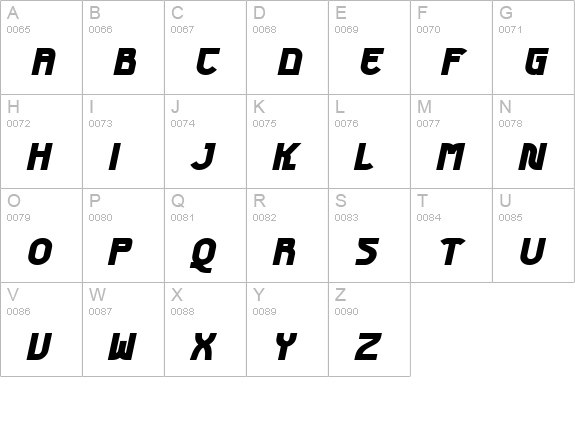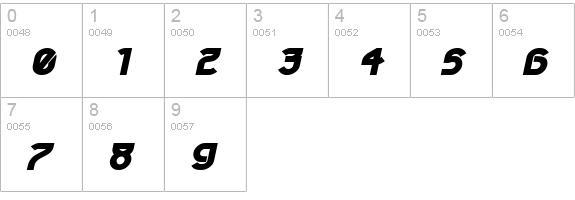
Futurex Phat Italic is a distinctive, italic variant in the Futurex typeface family \xE2\x80\x94 well suited to design and typography projects.
Futurex Phat Italic is a bold and dynamic font that exudes confidence and modernity. Its thick strokes and slanted design create a sense of energy and movement, making it perfect for attention-grabbing headlines and eye-catching designs. The italicized style adds a touch of elegance and sophistication to any project, while still maintaining a strong visual impact. This versatile font is ideal for a wide range of design applications, from posters and banners to logos and branding materials. Whether you're looking to make a bold statement or add a stylish flair to your designs, Futurex Phat Italic is sure to impress. Best of all, this font is available for free download at FontsMarket.com, making it easily accessible for designers and creatives looking to elevate their work with a fresh and modern typeface. Embrace the boldness and creativity of Futurex Phat Italic and take your designs to the next level.